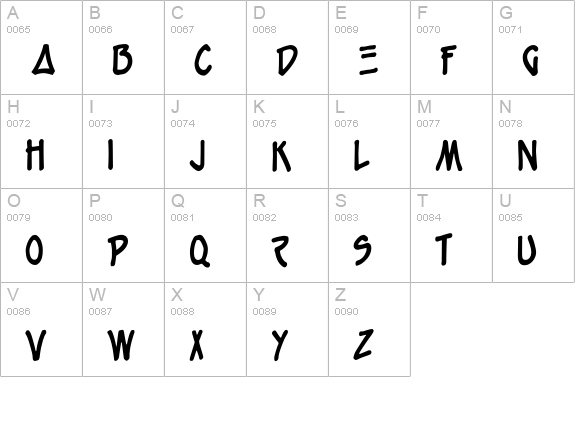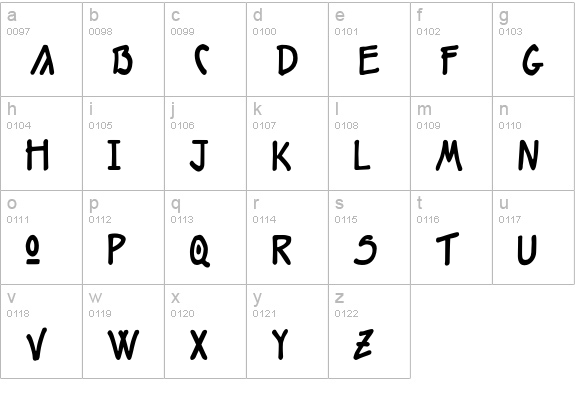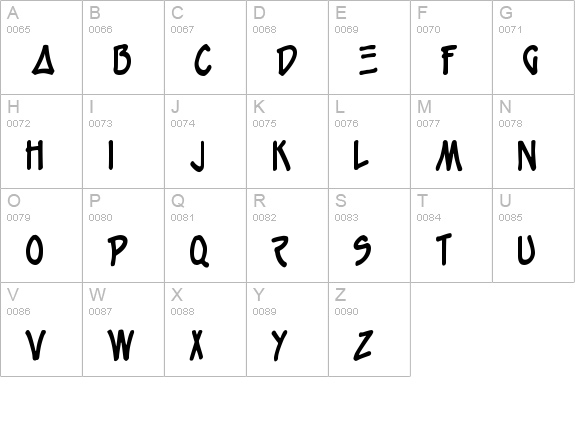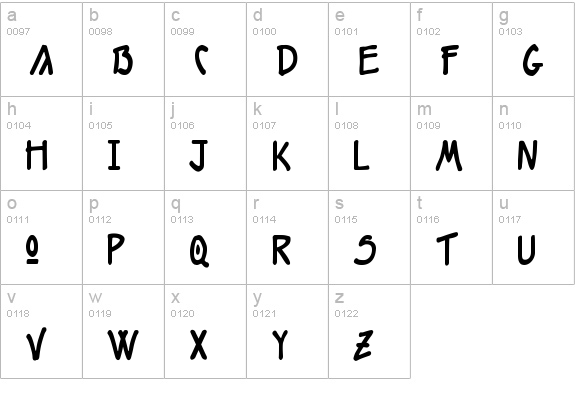
LittleLouis font is a charming and whimsical typeface that brings a touch of playfulness to any design. Its rounded edges and slightly irregular letterforms give it a unique and friendly appearance, making it perfect for projects that require a fun and casual feel. Whether you're designing a birthday invitation, a children's book, or a logo for a creative business, LittleLouis is sure to bring a smile to your audience's face. And the best part? LittleLouis font is available for free download at FontsMarket.com! This means you can easily access this delightful font without any cost, making it a valuable addition to your design toolkit. Don't miss out on the opportunity to add a touch of whimsy to your projects with LittleLouis font – download it today and let your creativity soar!